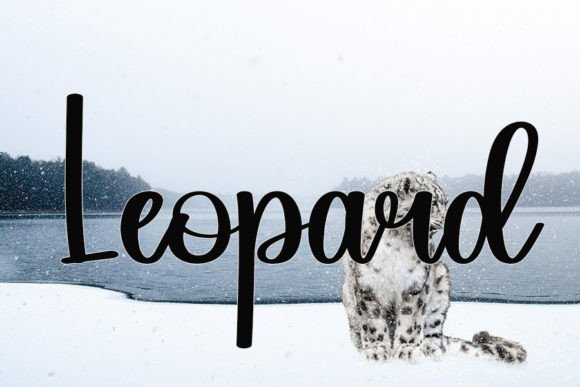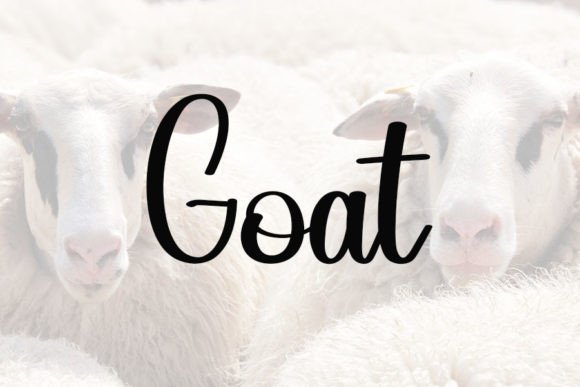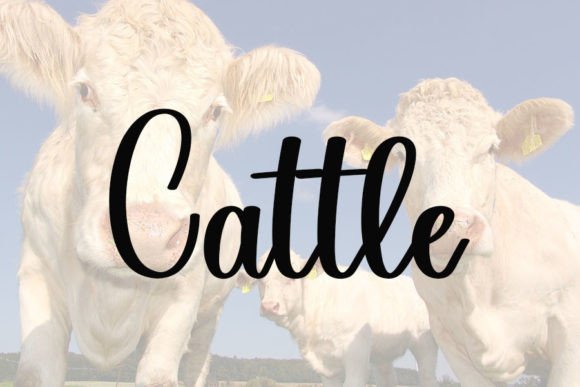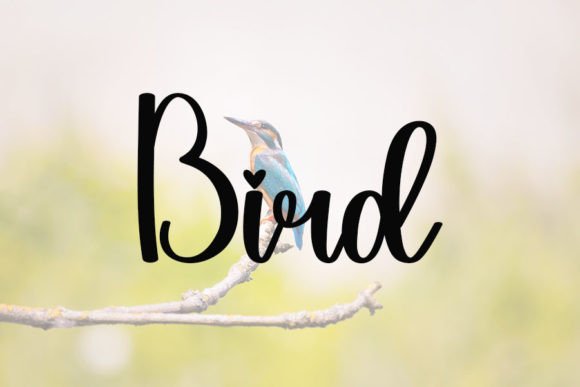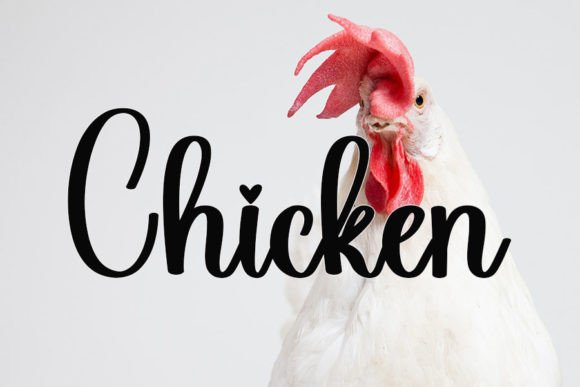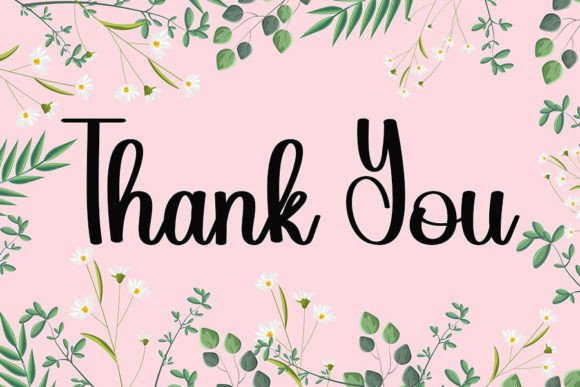
Introducing Animal Font: The Elegant and Timeless Choice for Your Design Projects
Are you looking for a font that can add a touch of elegance and sophistication to your design projects? Look no further than Animal Font, a beautiful handwritten font that is sure to capture your heart. With its incredibly distinct and timeless style, Animal Font is the perfect choice for designers and crafters who want to create spectacular designs that stand out from the crowd.
What is Animal Font?
Animal Font is a neat and beautiful handwritten font that is described by an elegant touch. It is a versatile font that can be used for a wide range of design projects, from branding and advertising to packaging and digital media. With its unique and stylish letterforms, Animal Font is sure to add a touch of personality and flair to any design.
Key Features of Animal Font
So, what makes Animal Font so special? Here are just a few of its key features:
- Elegant and sophisticated design: Animal Font has a timeless and classic design that is sure to add a touch of elegance and sophistication to any project.
- Unique and stylish letterforms: Each letterform in Animal Font is carefully crafted to be unique and stylish, making it perfect for designs that require a personal touch.
- Versatile and flexible: Animal Font can be used for a wide range of design projects, from digital media to print materials.
- Easy to read and understand: Despite its elegant and sophisticated design, Animal Font is still easy to read and understand, making it perfect for body text and other long-form content.
Why Choose Animal Font?
So, why should you choose Animal Font for your design projects? Here are just a few reasons:
- Add a personal touch to your designs: With its unique and stylish letterforms, Animal Font is the perfect way to add a personal touch to your designs and make them stand out from the crowd.
- Create a cohesive brand identity: Animal Font can be used to create a cohesive brand identity that is elegant, sophisticated, and timeless.
- Perfect for a wide range of design projects: Whether you’re working on a branding project, an advertising campaign, or a digital media project, Animal Font is the perfect choice.
How to Use Animal Font
Using Animal Font is easy! Here are just a few tips to get you started:
- Pair it with other fonts: Animal Font can be paired with other fonts to create a unique and stylish design. Try pairing it with a bold sans-serif font for a striking contrast.
- Experiment with different colors: Animal Font looks great in a wide range of colors, from bold and bright to soft and pastel.
- Use it for headlines and titles: Animal Font is perfect for headlines and titles, where its elegant and sophisticated design can really shine.